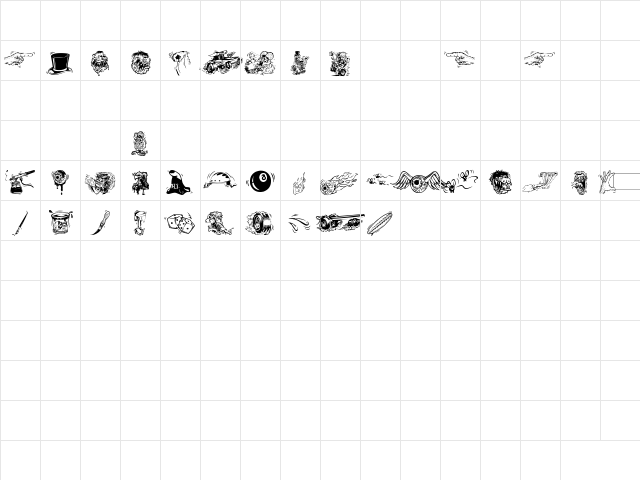
Rat Finkbats Regular Free Font
Rat Finkbats Regular
Design Context for Rat Finkbats
Rat Finkbats is a composed and adaptable typeface that performs quietly and consistently across a wide range of design contexts.